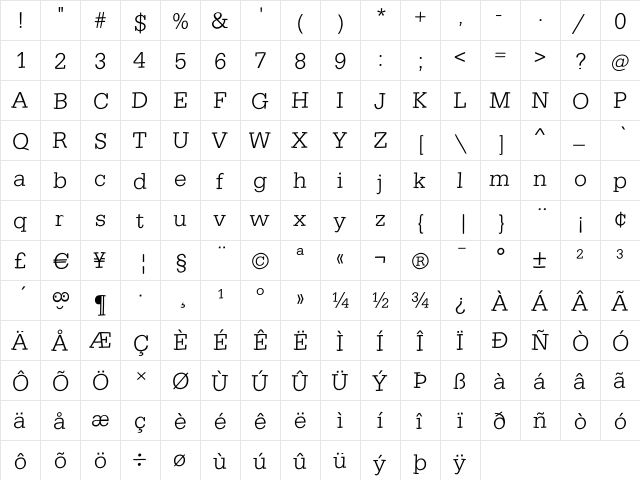
CairotiquaFSFreestyle Regular Font Preview
CairotiquaFSFreestyle Regular
Design Context for CairotiquaFSFreestyle Typeface
CairotiquaFSFreestyle is a composed and adaptable typeface that performs quietly and consistently across a wide range of design contexts.